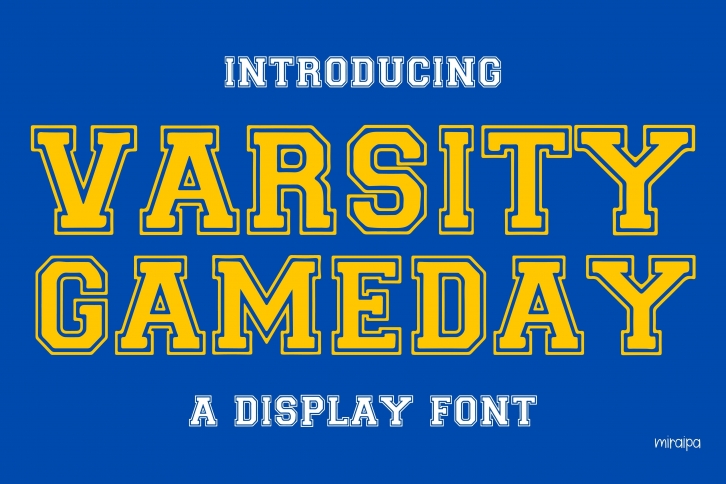
Varsity Gameday is a cool and modern display font, inspired by classic sport-style typefaces. Add it confidently to your projects and you will love the results!